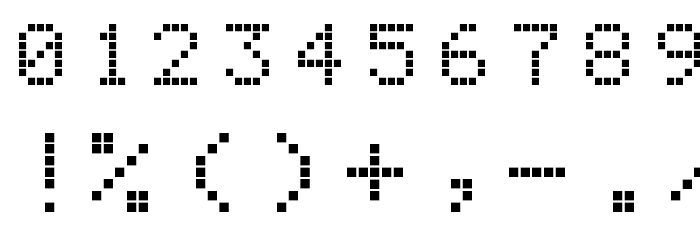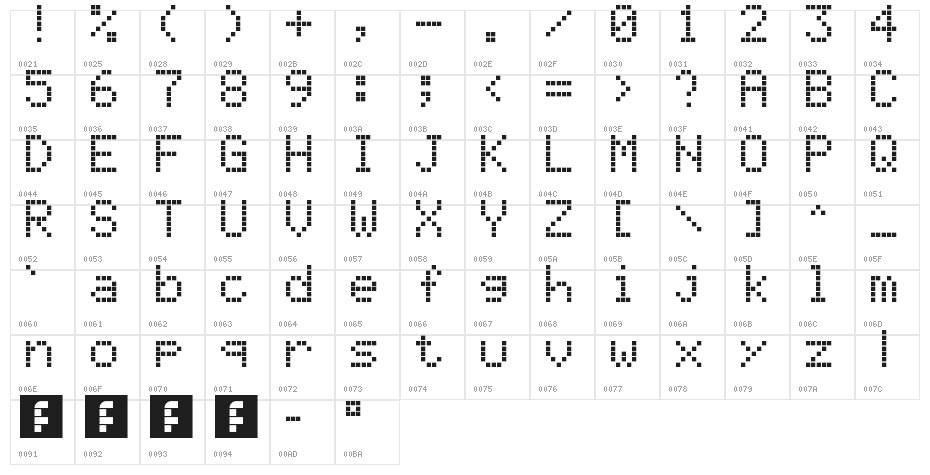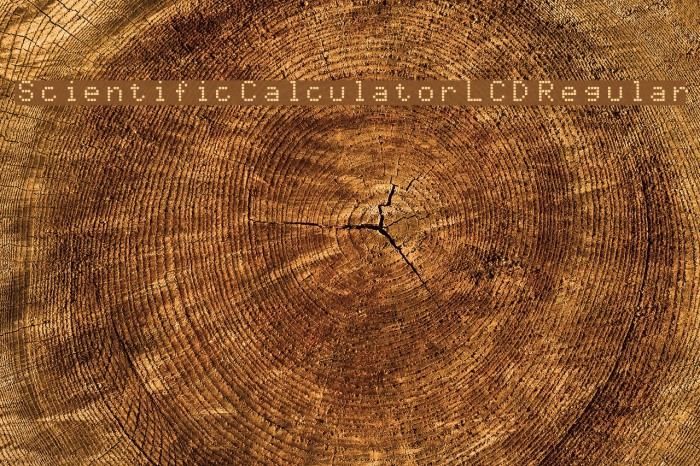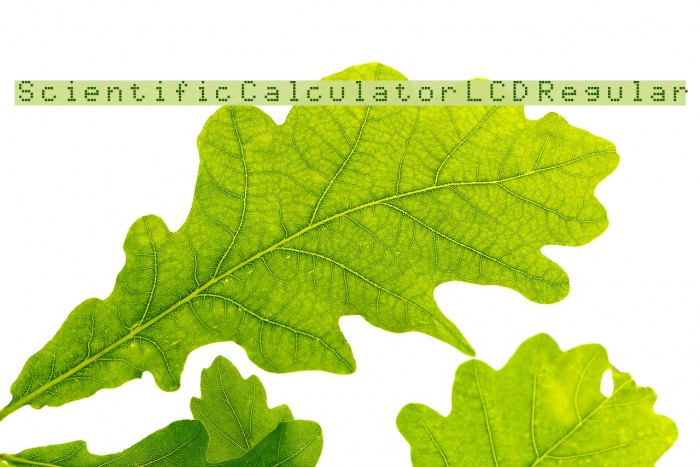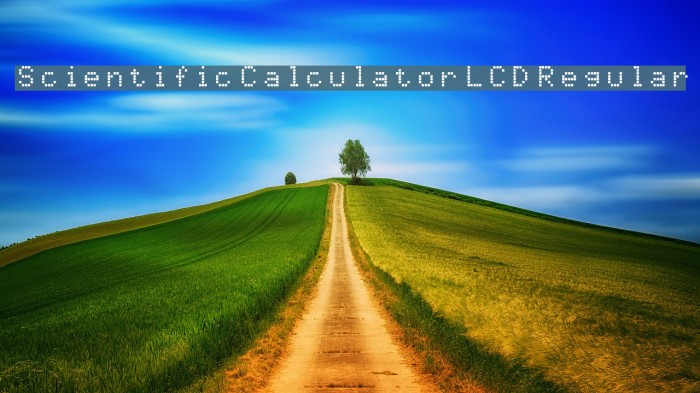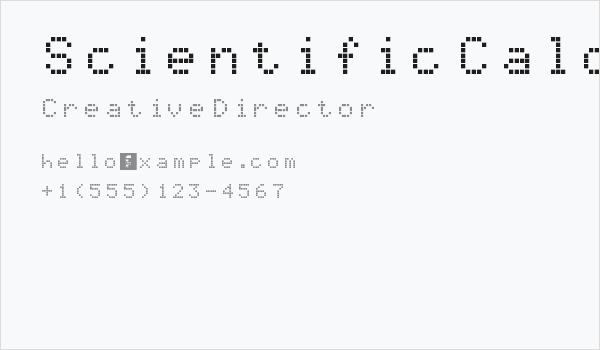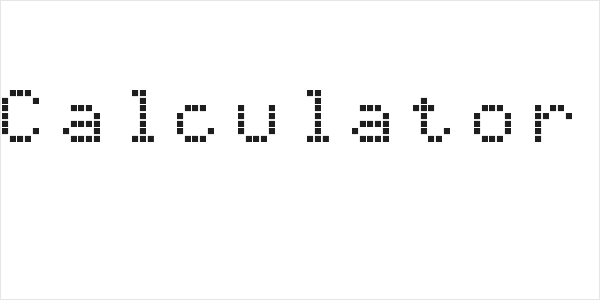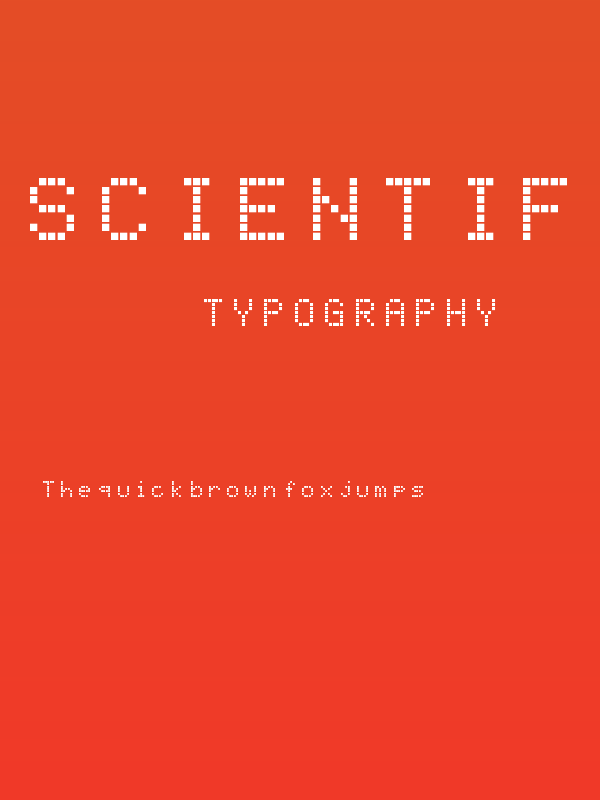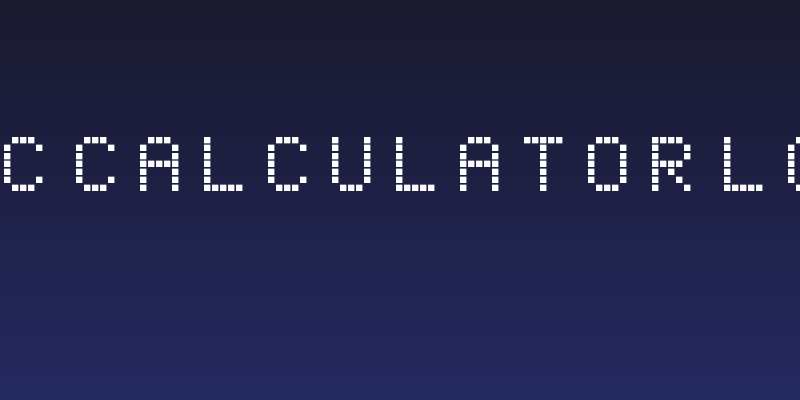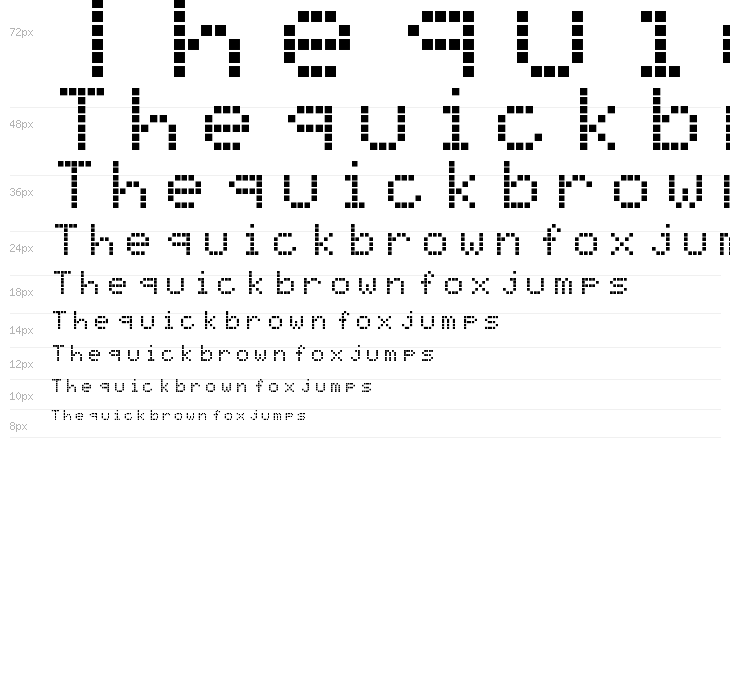
Scientific Calculator LCD Regular Font
Scientific Calculator LCD Regular Description
This font is characterized by its distinct pixelated, dot-matrix style, reminiscent of old LCD displays found in scientific calculators. Each character is composed of a grid of small squares, giving it a digital and retro appearance. The uniformity in the size and spacing of the dots creates a consistent and structured look across all characters. This design is highly legible and evokes a sense of nostalgia, making it ideal for projects that aim to capture a vintage digital aesthetic. The font includes a full set of uppercase and lowercase letters, numbers, and a variety of special characters, ensuring versatility in its application.
| Use Case | Logos, Headlines, Digital Art |
| Proposed Projects | Ideal for retro-themed designs, digital art projects, tech-related branding, and any creative work that seeks to evoke a sense of nostalgia for early digital technology. |